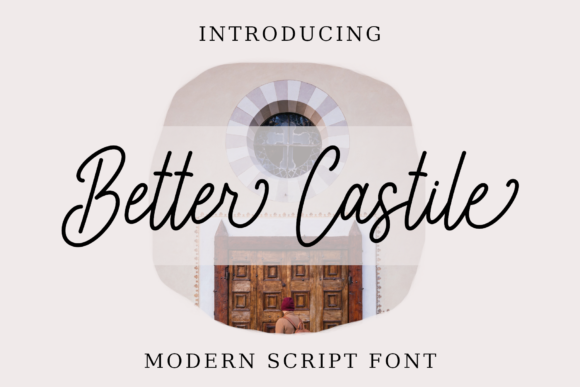
Better Castile Font: Elevate Your Designs with Elegance and Sophistication
In the world of typography, a well-crafted font can make all the difference in elevating your designs from ordinary to extraordinary. If you’re on the hunt for a beautiful, well-balanced, and stylish script font that exudes elegance and sophistication, look no further than Better Castile Font. This stunning font is designed to make your fashion branding, editorial designs, and creative projects stand out with its smooth curves and flowing lines.
What Makes Better Castile Font Special?
Better Castile Font is a gorgeous script font that boasts a range of features that make it perfect for a variety of design applications. Here are just a few of the key characteristics that set this font apart:
- Smooth Curves: Better Castile Font is defined by its smooth, flowing curves that give it a luxurious and refined feel. The font’s curves are carefully crafted to create a sense of movement and fluidity, making it perfect for designs that require a touch of elegance.
- PUA Encoded: This font is PUA (Private Use Area) encoded, which means that you can access all of the glyphs and swashes with ease. This makes it simple to customize your designs and add unique touches that set your work apart.
- Well-Balanced: Better Castile Font is meticulously designed to be well-balanced, with a perfect harmony of thick and thin lines. This balance creates a sense of stability and sophistication, making it ideal for a range of design applications.
- Stylish: With its elegant lines and refined curves, Better Castile Font is the epitome of style. Whether you’re working on a fashion brand, editorial design, or creative project, this font is sure to make a statement.
Perfect for Fashion Branding and Editorial Designs
Better Castile Font is specifically designed with fashion branding and editorial designs in mind. Its elegant curves and refined lines make it perfect for:
- Fashion Logos: Create a stunning logo for your fashion brand that exudes elegance and sophistication.
- Editorial Designs: Use Better Castile Font to add a touch of luxury to your editorial designs, such as magazine covers, articles, and advertisements.
- Packaging Design: Elevate your packaging design with Better Castile Font, perfect for high-end fashion brands and luxury products.
- Digital Media: Use this font to create stunning digital media, such as social media graphics, blog posts, and website headers.
Tips and Tricks for Using Better Castile Font
To get the most out of Better Castile Font, here are a few tips and tricks to keep in mind:
- Experiment with Swashes: With PUA encoding, you can access a range of swashes and glyphs to add unique touches to your designs.
- Play with Font Sizes: Better Castile Font looks stunning in a range of font sizes, from large headings to smaller body text.
- Combine with Other Fonts: Experiment with pairing Better Castile Font with other fonts to create a unique and eye-catching design.
- Use for Headings and Titles: Better Castile Font is perfect for headings and titles, where its elegant curves and refined lines can really shine.
In conclusion, Better Castile Font is a stunning script font that is sure to elevate your designs to new heights. With its smooth curves, PUA encoding, and well-balanced design, this font is perfect for fashion branding, editorial designs, and creative projects. Whether you’re looking to add a touch of elegance to your work or create a statement piece, Better Castile Font is the perfect choice.